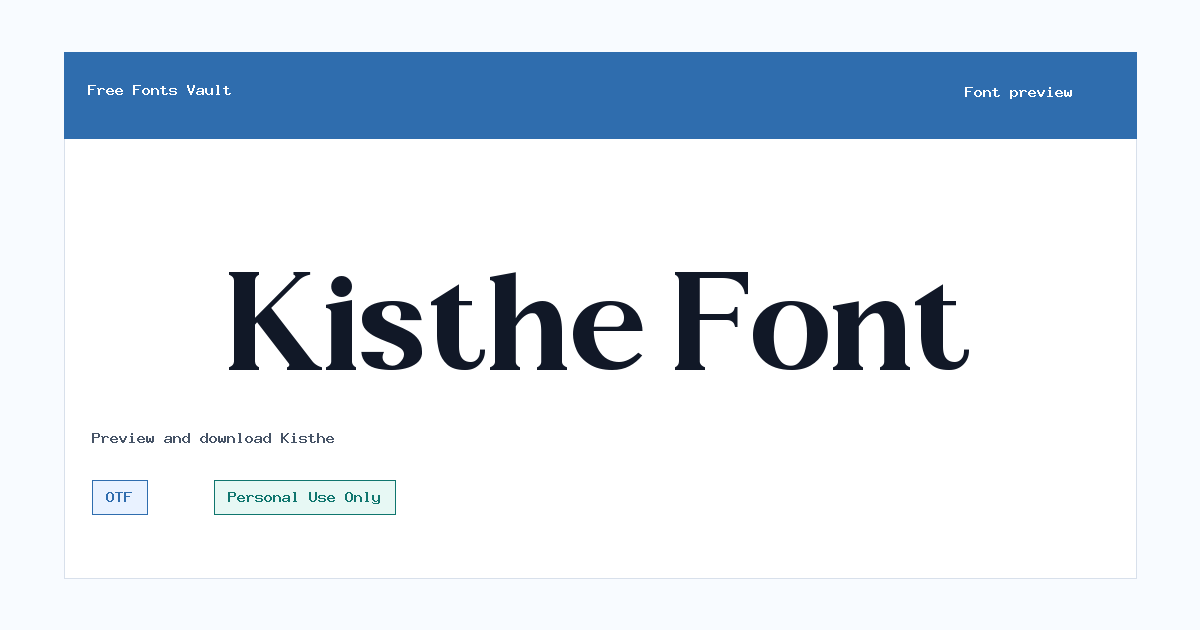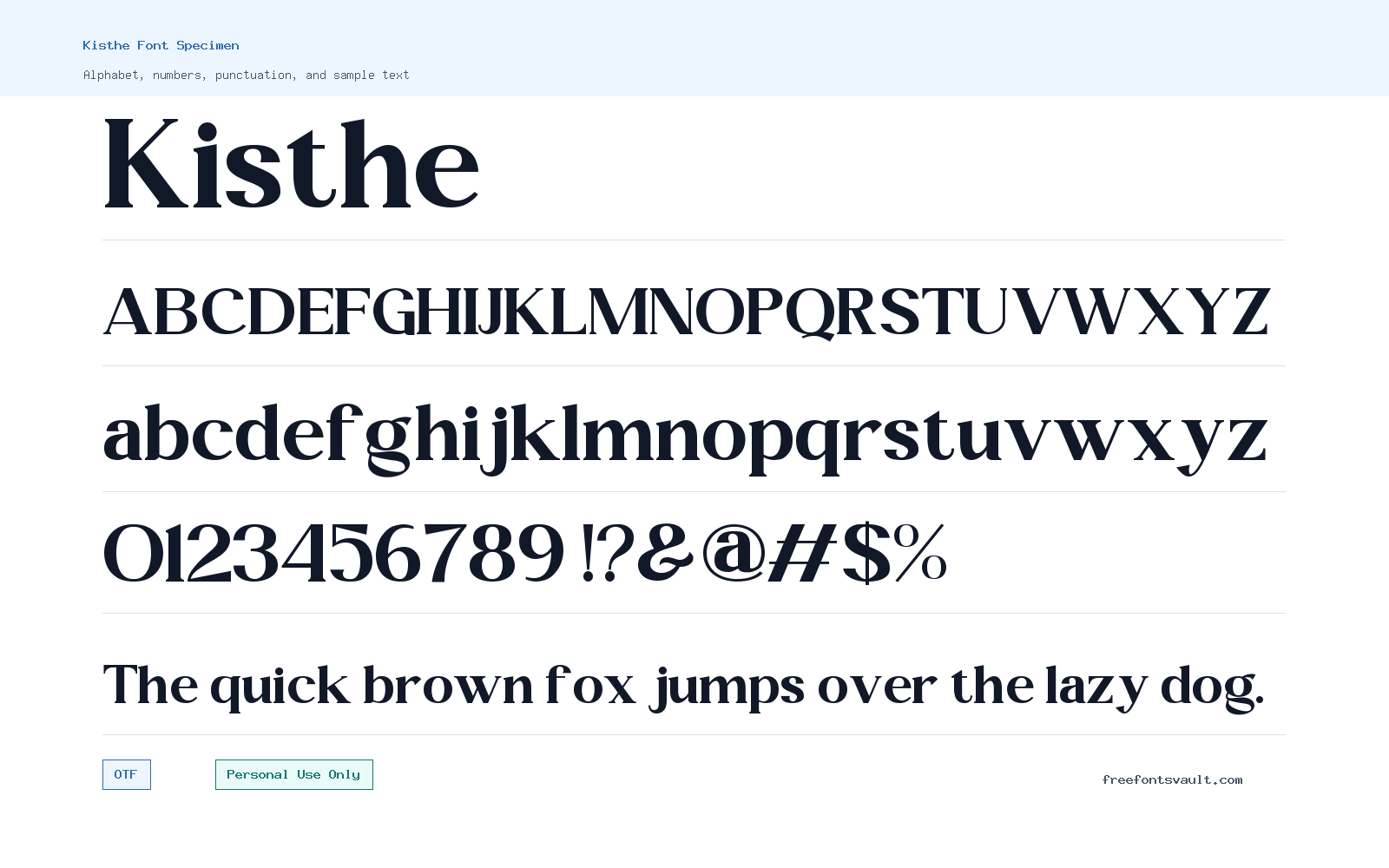
Kisthe
Kisthe Font
Kisthe is a serif display font with a refined, decorative feel that works best when the text is short and given room to breathe. It is suited to personal projects where you want a polished title style rather than a plain reading face.
About Kisthe Font
Kisthe has the kind of serif structure visitors usually look for when they need a font for elegant headings, name-based designs, invitations, boutique-style graphics, or social media artwork. Because the font is offered as a regular OTF file, it should work in most modern design apps that support OpenType fonts, including common desktop layout, image editing, and presentation tools. Use the preview box to test your own words before downloading, especially if your design depends on a specific name, phrase, or product-style title.
This font is a better fit for display use than long paragraphs. Try it in large sizes first, then check how the letter spacing behaves in your layout. If a word feels tight, add a little tracking rather than forcing the font into a narrow space. For pairing, keep the supporting type simple: a clean sans serif or a quiet text serif will let Kisthe carry the visual focus. Avoid using multiple decorative fonts in the same design, because they can compete with each other and make the final piece harder to read.
• Serif display style suited to short, polished text settings
• Invitations, greeting cards, and personal event graphics
• Headings, name designs, social posts, and decorative preview mockups
Preview your exact text before using Kisthe in a finished design. Check uppercase and lowercase forms, spacing between repeated letters, and readability at the final size. For body copy, captions, or small interface text, choose a simpler companion font and keep Kisthe for the main title or accent words.
What style of font is Kisthe?
Kisthe is presented as a serif font with a display-friendly regular style.
Where does Kisthe work best?
It works best in short text such as headings, invitations, names, logos for personal drafts, social graphics, and decorative titles.
Can I use Kisthe for long paragraphs?
It is not the best choice for long reading text. Use it for emphasis, then pair it with a simpler font for paragraphs and details.